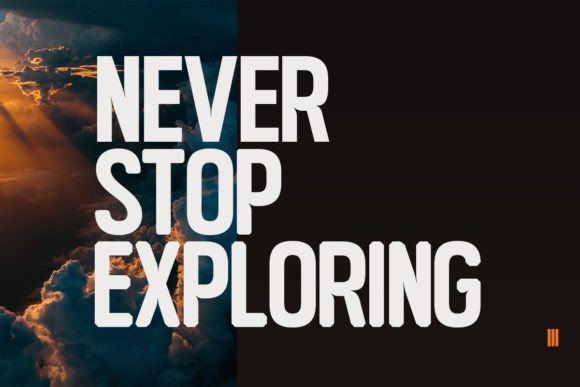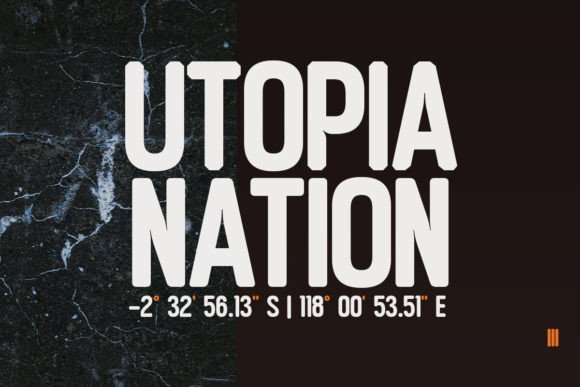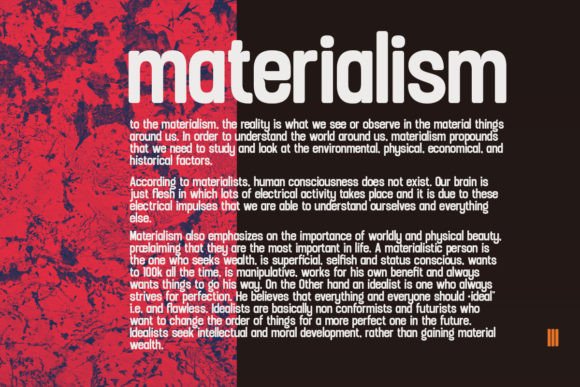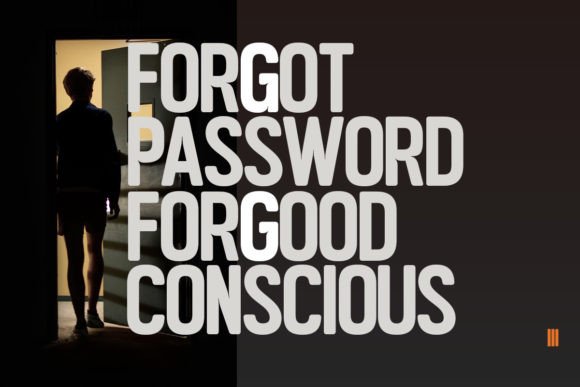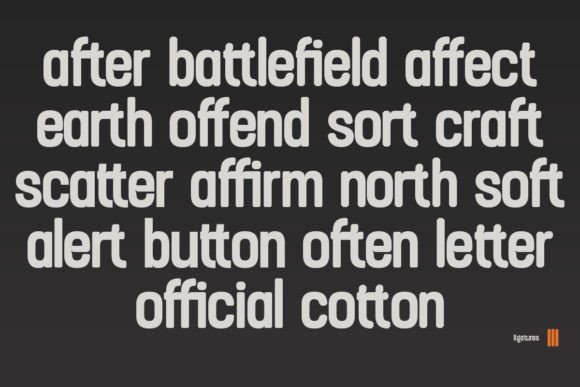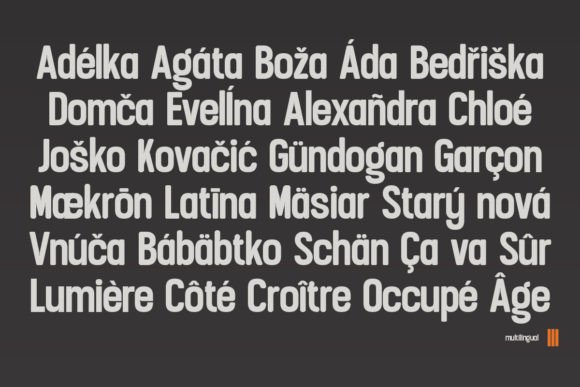
Introducing Bargo Font: A Versatile Sans Serif Typeface with a Modern Twist
In the world of typography, a new font has emerged that is set to revolutionize the way designers approach their craft. Meet Bargo, a sans serif typeface that comes in three unique styles, designed to provide a fresh perspective on modern design. Developed by Look Minus, Bargo is a versatile and stylish choice for any design project, from print materials to digital media.
The Inspiration Behind Bargo
The team at Look Minus drew inspiration from their own experiences as designers, seeking to create a typeface that embodies the characteristics of their craft. “Behind these 3 styles, we want to combine a typeface that can provide a different perspective,” they explain. “Regular which gives a masculine and modern impression, an attractive manner with a contemporary feel to the round, and edged which wants to show its futuristic shape.” This approach has resulted in a font that is both modern and forward-thinking.
The Three Styles of Bargo
Bargo comes in three distinct styles: Regular, Round, and Edged. Each style offers a unique take on the sans serif genre, allowing designers to choose the perfect variation for their project.
- Regular: This style exudes a masculine and modern impression, making it perfect for designs that require a bold and contemporary look.
- Round: With its attractive and contemporary feel, the Round style is ideal for designs that require a softer, more approachable tone.
- Edged: For designs that require a futuristic shape, the Edged style is the perfect choice. Its sharp lines and angular features make it perfect for cutting-edge designs.
One of the standout features of Bargo is its versatility. This font is perfect for a wide range of design needs, including:
- Branding: Use Bargo to create a bold and memorable brand identity that stands out from the crowd.
- Advertising: With its modern and sleek design, Bargo is perfect for advertising campaigns that require a fresh and attention-grabbing look.
- Packaging: Bargo’s versatility makes it an excellent choice for packaging design, where it can be used to create eye-catching labels and packaging materials.
- Editorial Design: Use Bargo to add a modern touch to editorial designs, such as magazines, newspapers, and books.
Why Choose Bargo?
- Unique Perspective: Bargo offers a fresh take on the sans serif genre, providing designers with a unique perspective on modern design.
- Highly Versatile: With its three distinct styles, Bargo can be used for a wide range of design projects, from print materials to digital media.
- Modern and Sleek: Bargo’s modern design makes it perfect for designers who want to create bold and attention-grabbing designs.